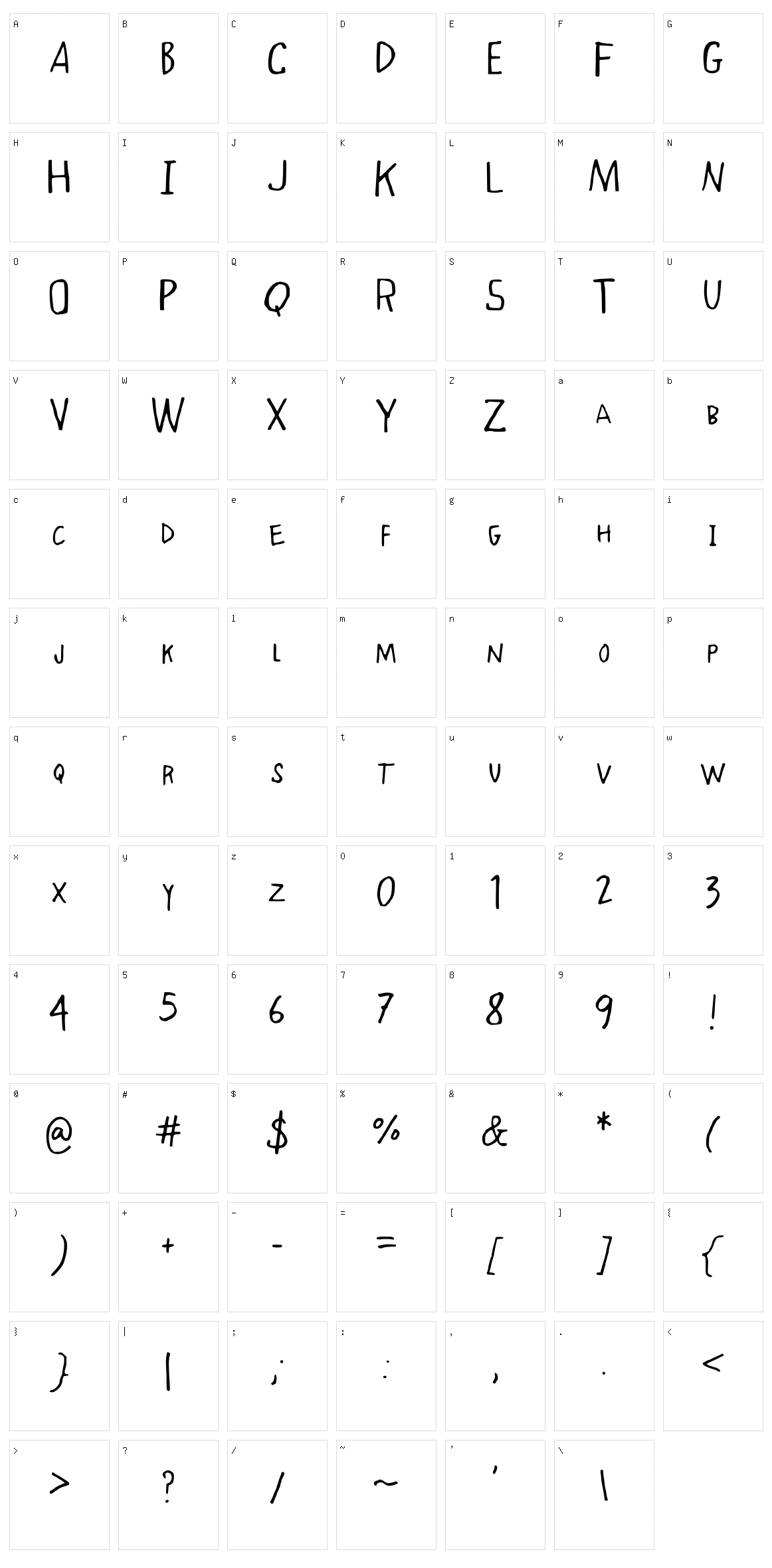
The free font Lemonade Lazy Days is carefully designed by Kelsey Ann G, showcasing a thoughtful balance of creativity and usability and falls under the Script font style. When you download the ZIP file, it contains only 18.15 KB of font files, making it lightweight and quick to download. Please review the license details below to understand permitted usage and distribution rights. If license information is not available, we recommend using this font for personal projects only or contacting the author directly for commercial usage permissions.